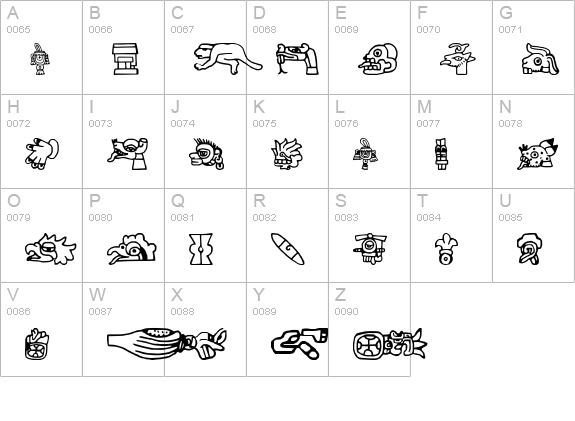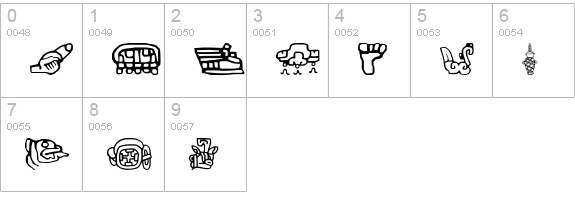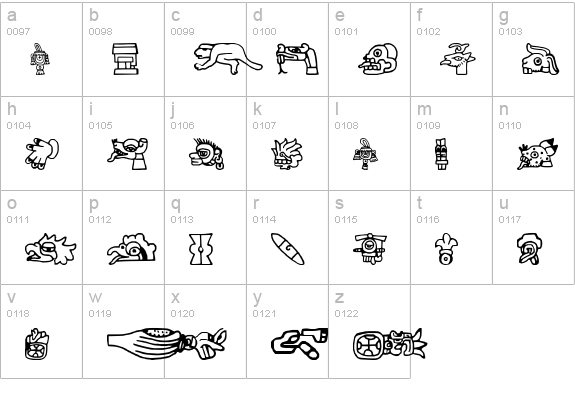
The Aztec font is a captivating and intricate typeface inspired by the ancient art and culture of the Aztec civilization. With its ornate details and unique symbols, this font exudes a sense of history and mystery that will elevate any design project. The Aztec font is not only visually striking but also versatile, suitable for a wide range of creative applications. Best of all, the Aztec font is available for free download at FontsMarket.com. This means that you can easily add this stunning font to your collection without any cost. Whether you are working on a branding project, a poster design, or any other creative endeavor, the Aztec font will definitely make a bold statement and leave a lasting impression. Download it today and unleash the ancient power of the Aztec font in your designs!